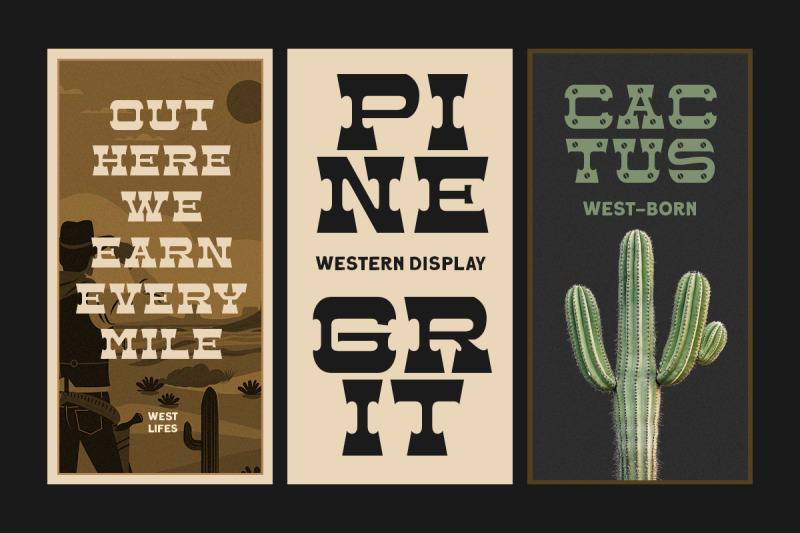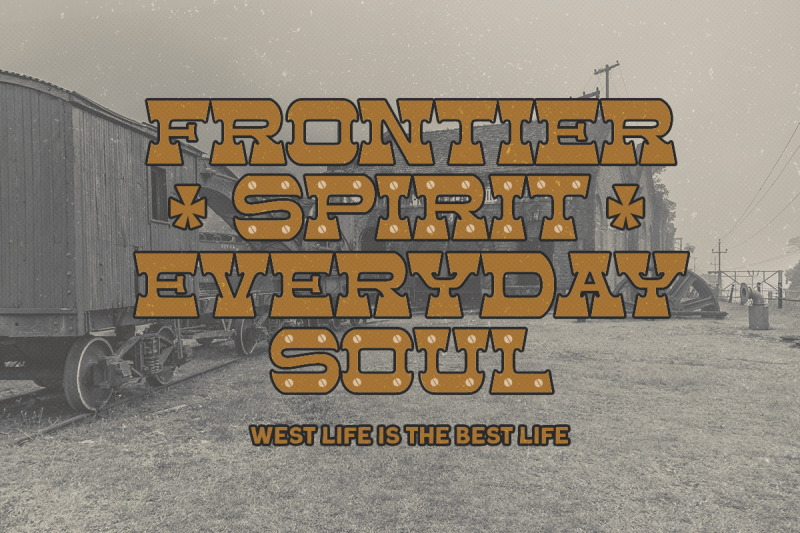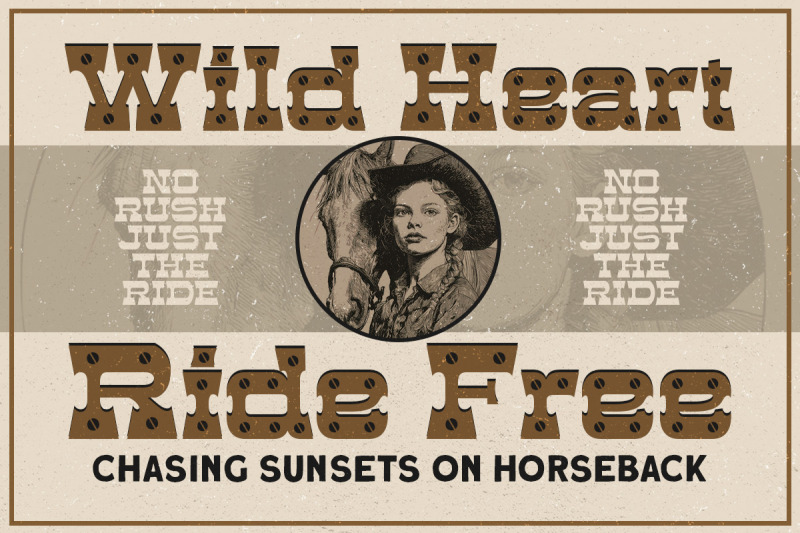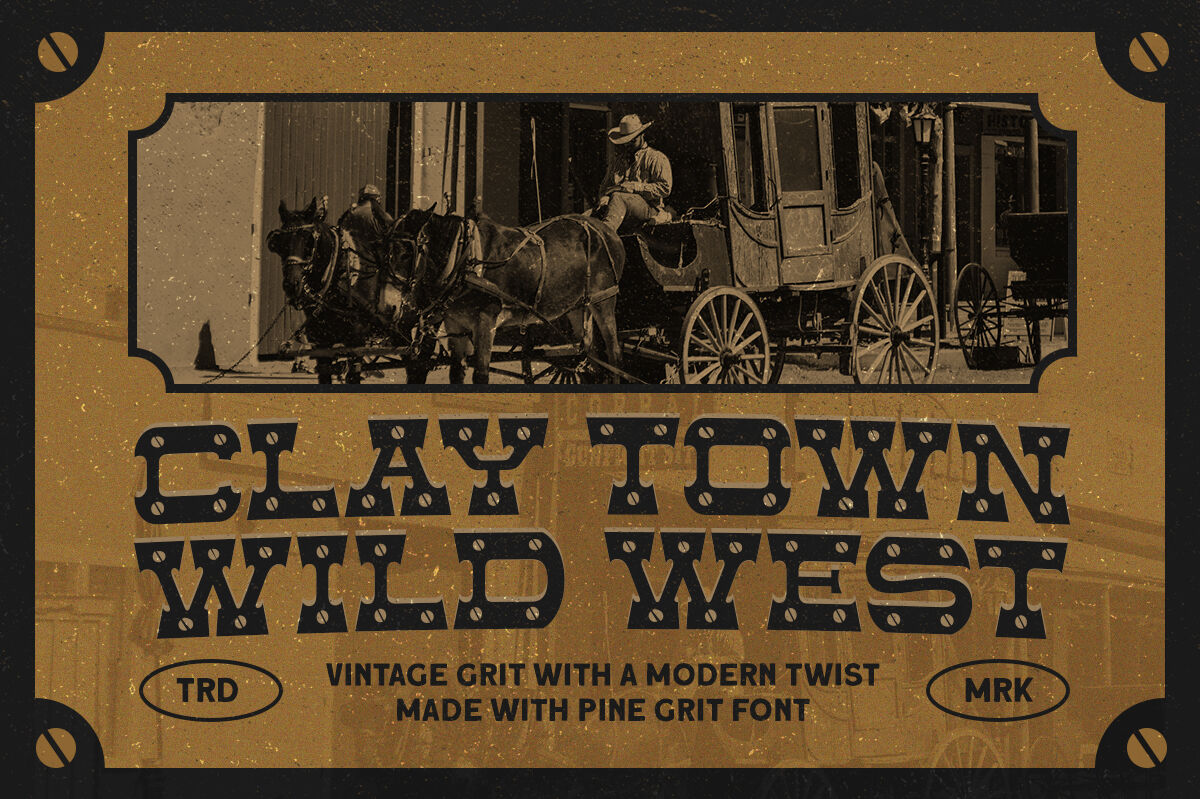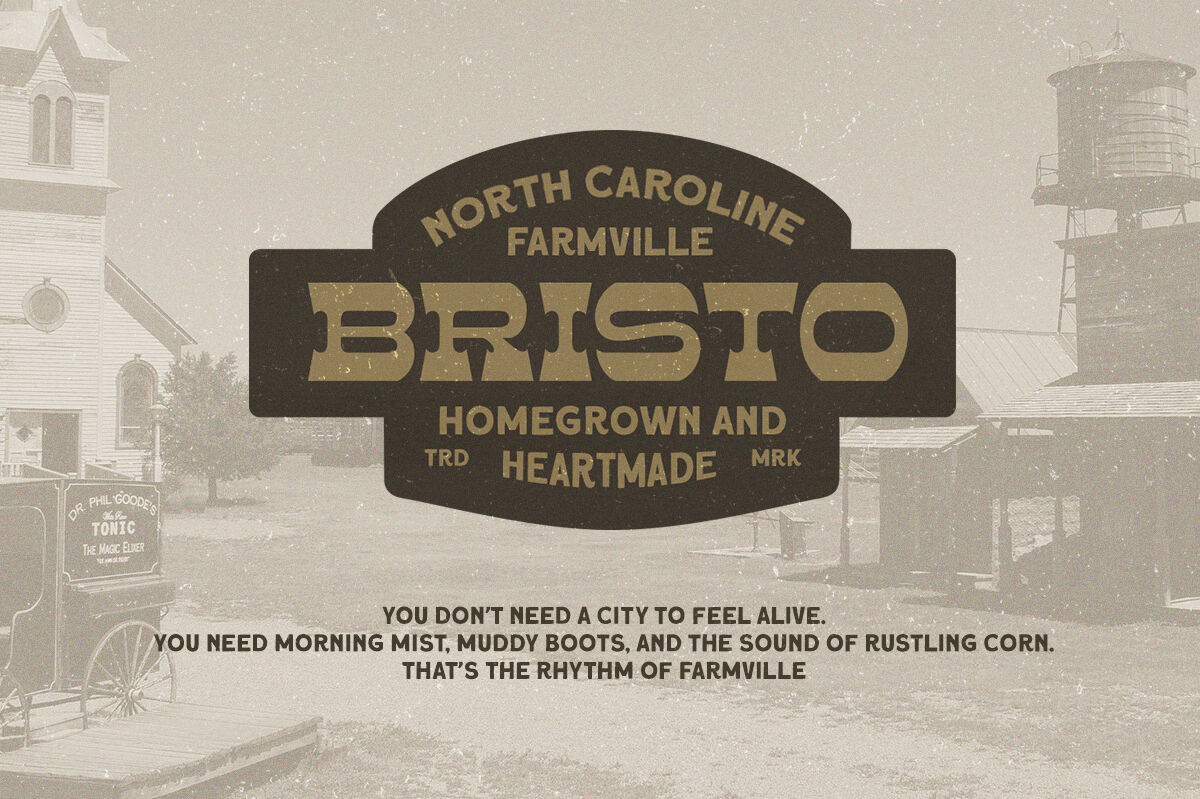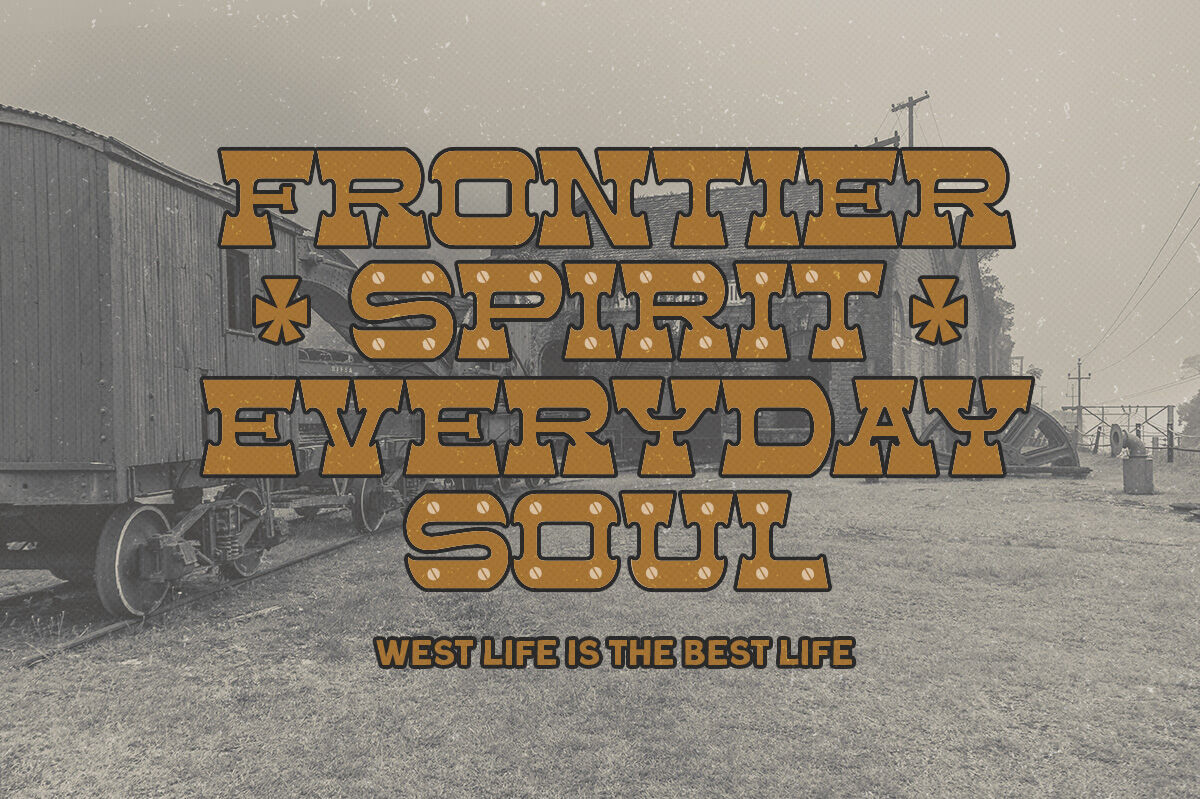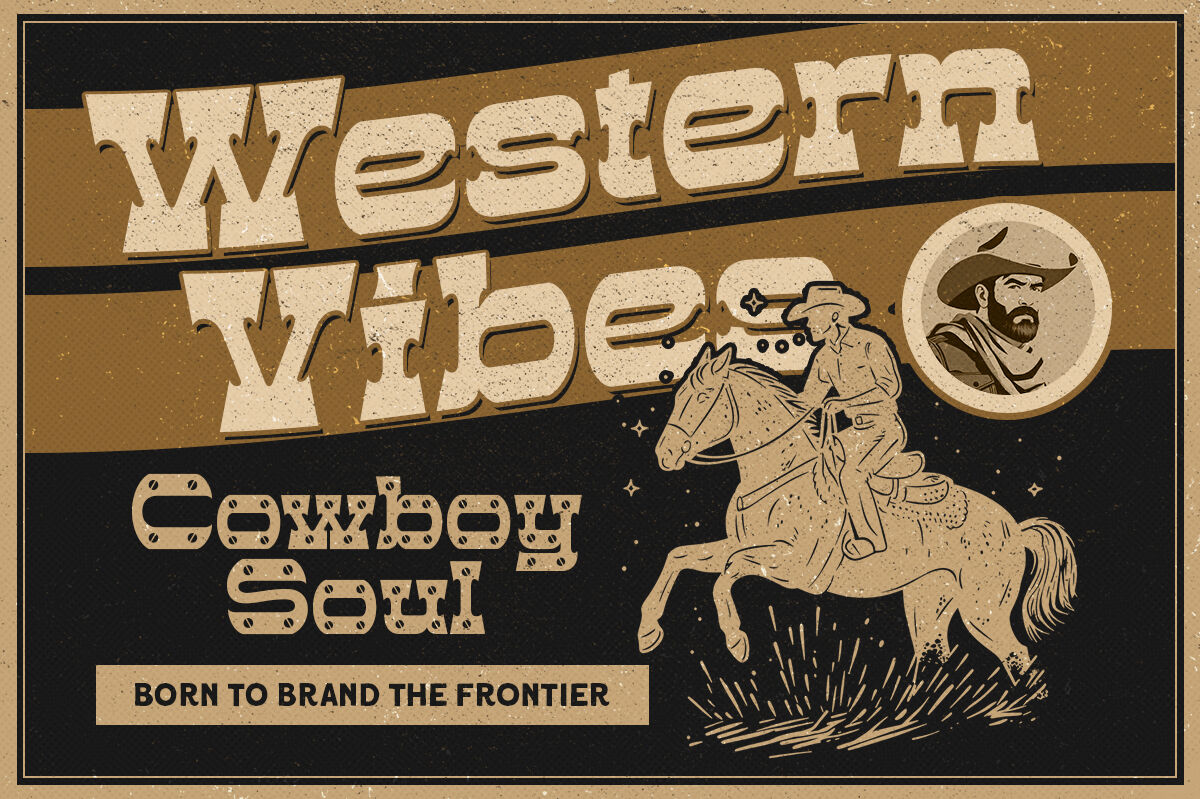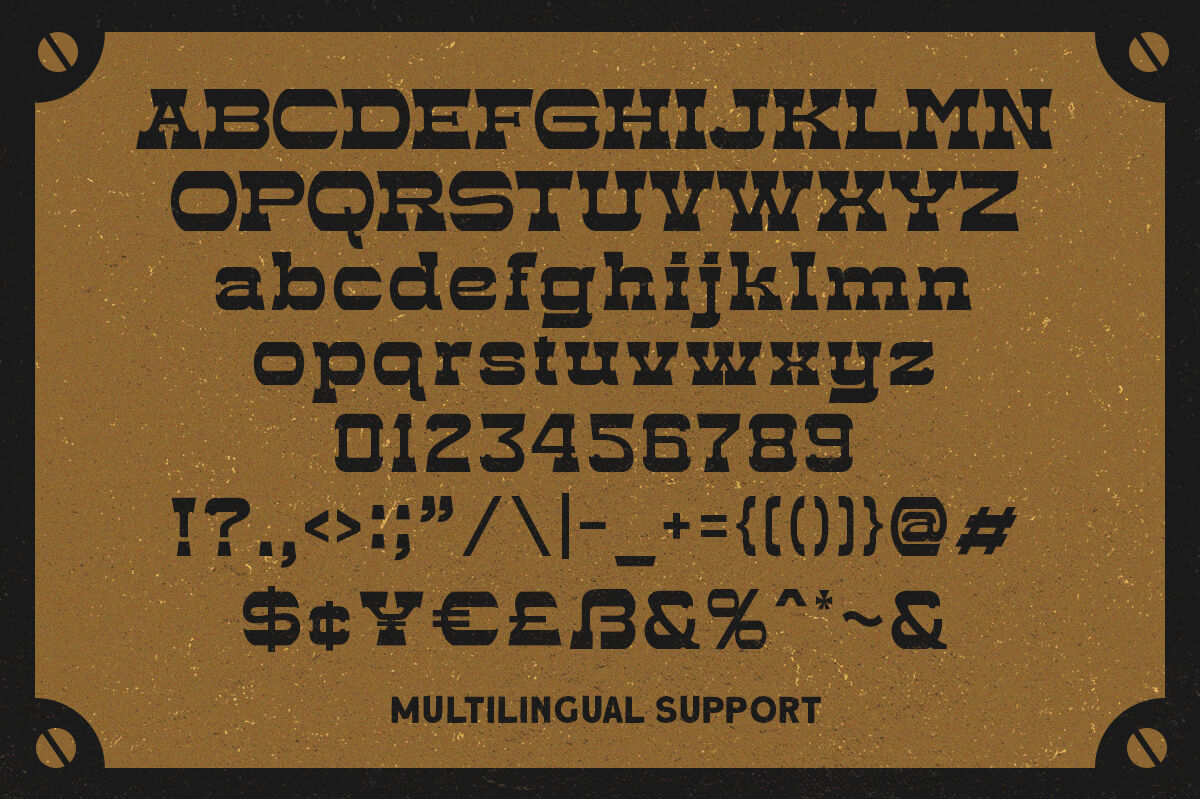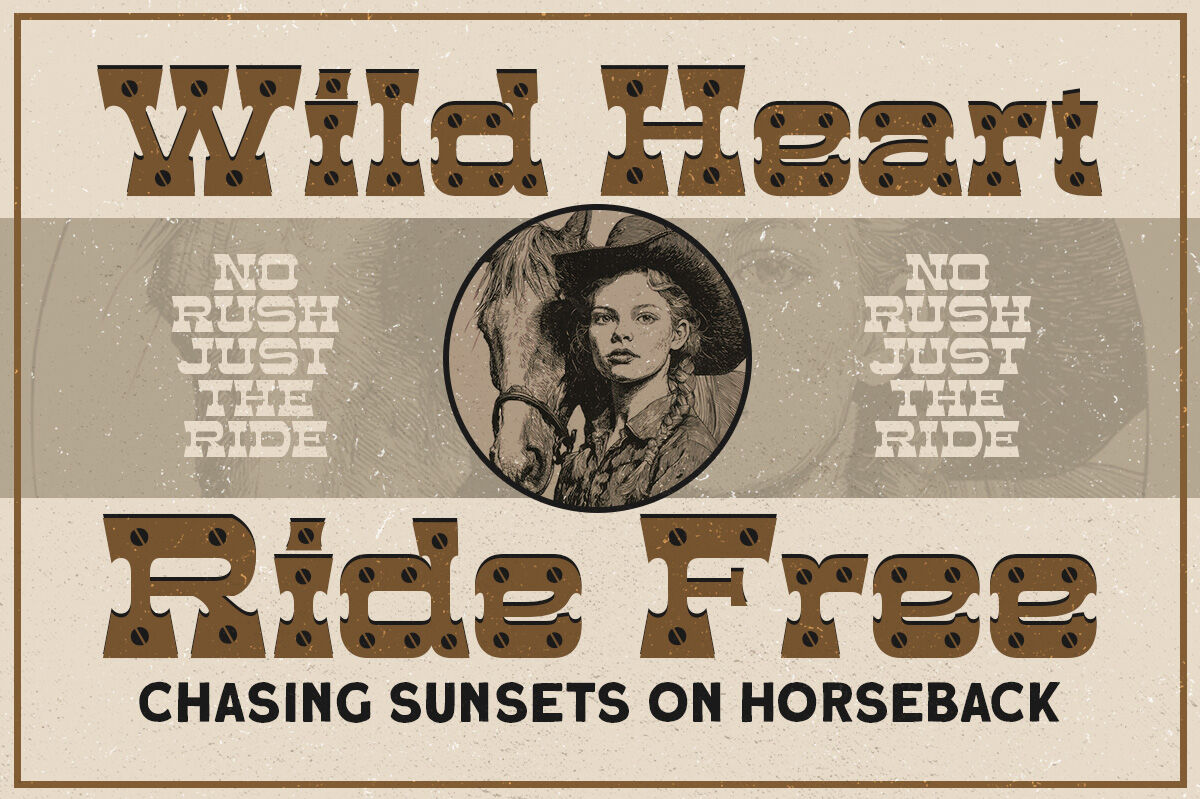
Pine Grit is a bold western display font inspired by vintage Americana and old-school signage. Featuring a unique blend of strong geometric shapes and decorative cuts, this typeface is perfect for logos, posters, merchandise, and editorial titles that demand a rugged, adventurous feel. With both Regular and Custom styles, Pine Grit brings character and attitude to every project. Ideal for Western themes, retro branding, and standout headlines.
Uppercase & lowercase
Numbers and punctuation
Regular & Custome
Multilingual Support